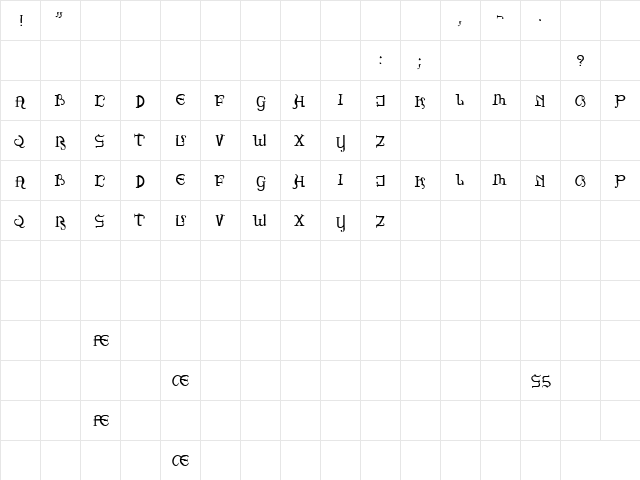
PiratesDrake Regular
Design Context for PiratesDrake Typeface
PiratesDrake is a composed and adaptable typeface that performs quietly and consistently across a wide range of design contexts.